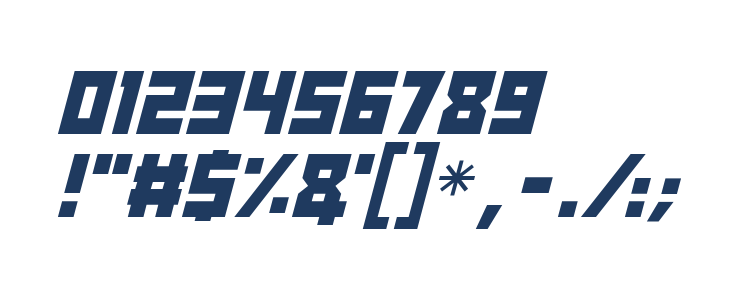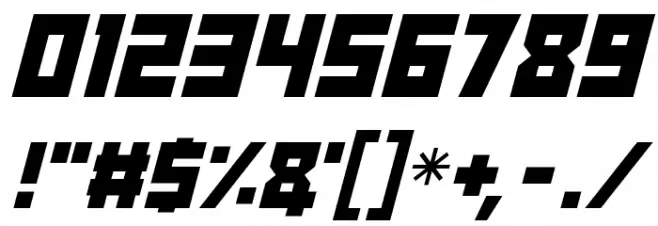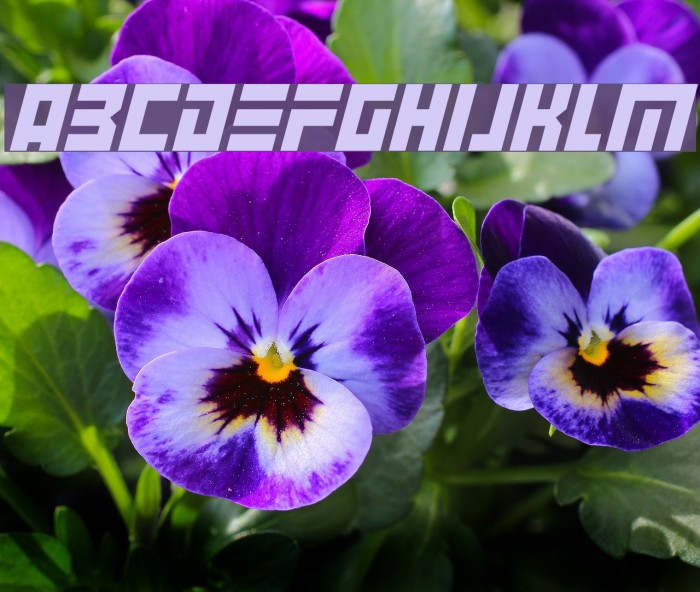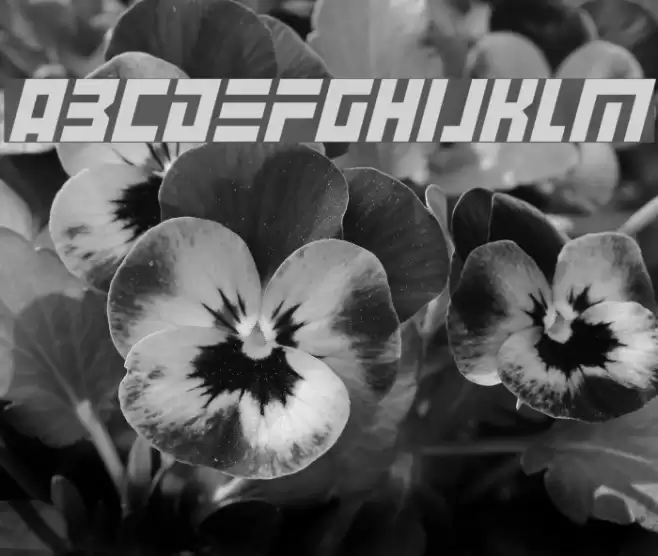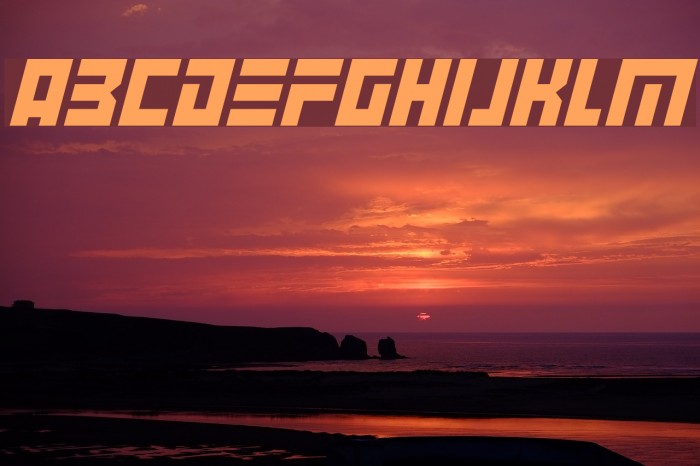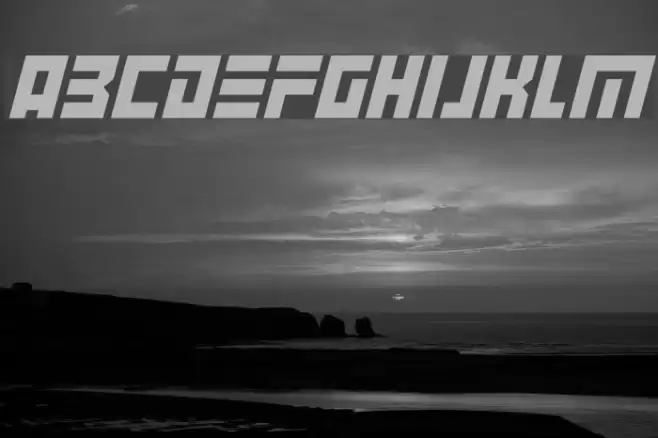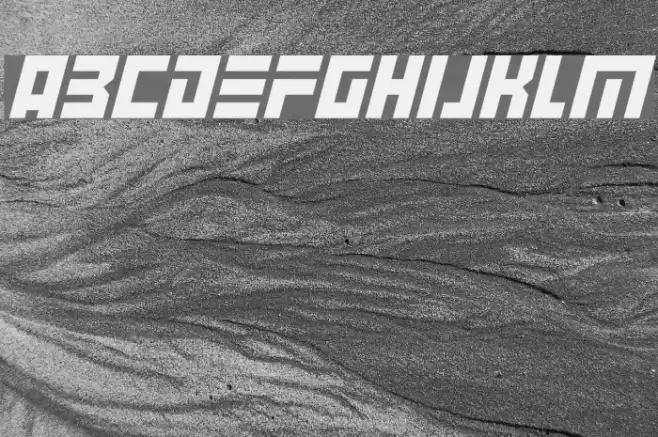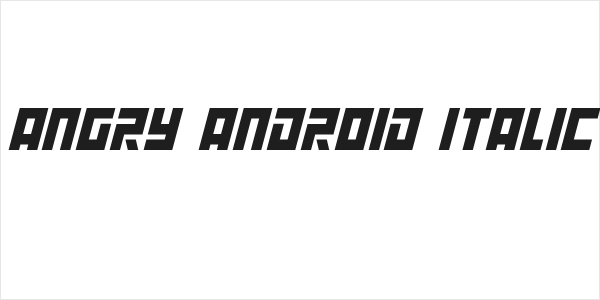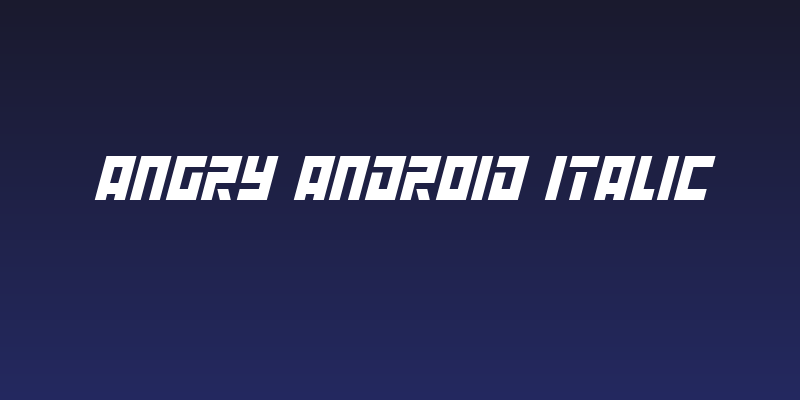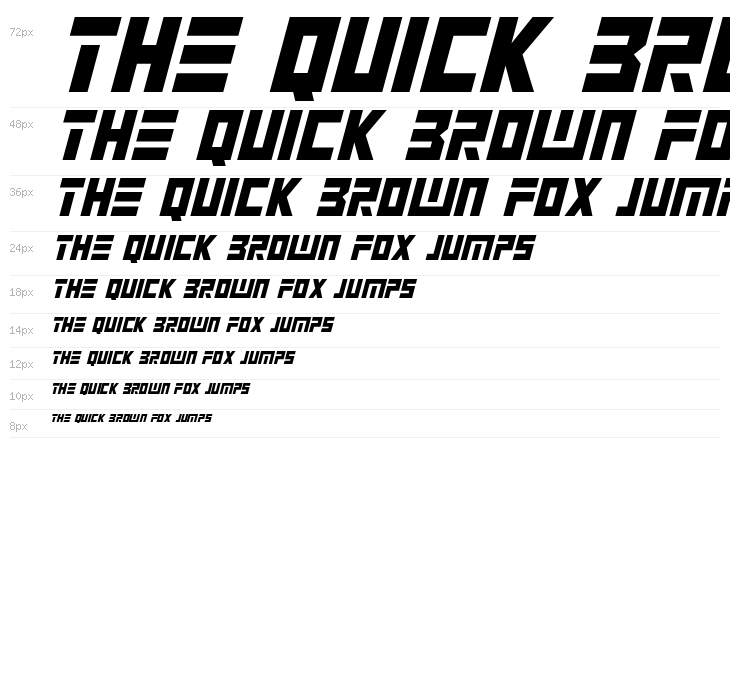
Angry Android Italic Font
Angry Android Italic Description
This font features a bold, angular design with a futuristic and aggressive aesthetic. The characters are italicized, giving them a dynamic and forward-leaning appearance. The strokes are thick and consistent, creating a strong visual impact. The geometric shapes and sharp edges contribute to its modern and edgy style, making it suitable for projects that require a bold statement. The font maintains a uniform width across characters, ensuring readability while emphasizing its unique style.
| Proposed Projects | Ideal for sci-fi themed projects, video game titles, tech branding, and dynamic posters. |